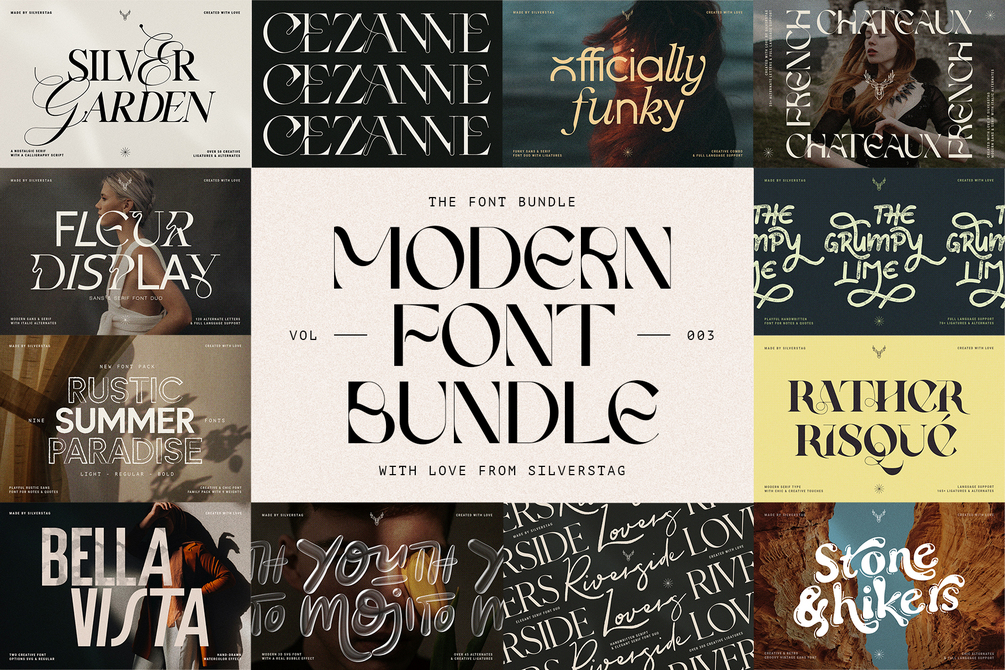
Chic & Modern Font Bundle Volume 3
Chic & Modern Font Bundle Volume 3 is here and it includes my latests 12 typefaces. The whole pack includes 29 fonts across 12 font families with over 1000 ligatures & alternate letters. Check put the preview images to see what you'll get.
Riverside Lovers - Elegant Font Duo
Rustic Summer Paradise Font Family
FRENCH CHATEAUX - Chic Display Font
YOUTH MOJITO - A 3D Bubbly SVG Font
CEZANNE - Modern Ligature Serif Font
Fleur Display - Sans/Serif Font Duo
Grumpy Lime - Playful Ligature Font
RATHER RISQUE - Ligature Serif Font
Officially Funky - Modern Font Duo
Silver Garden - Nostalgic Font Duo
Stone & hikers - Groovy Retro Font
Bella Vista - Creative SVG Sans Font